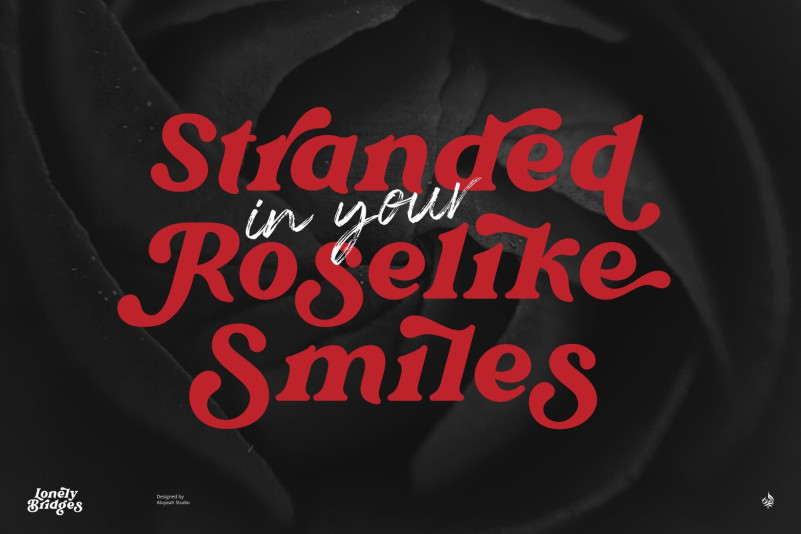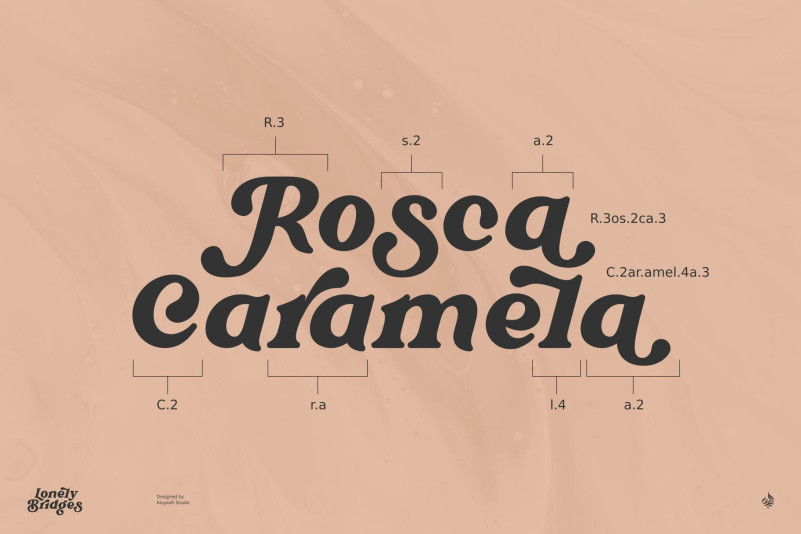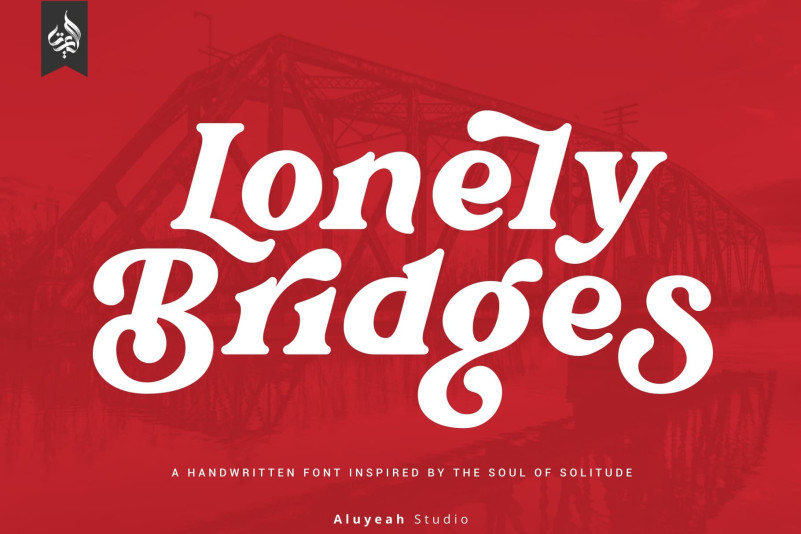
Lonely Bridges Font
Lonely Bridges Retro Font a handwritten display font inspired by the soul of solitude. Lonely Bridges carries an italic style giving the impression of an unstable, rebellious, and indecisive soul. Make your design project more emotional to convey.
It can be applied to many areas of design. Coming with 150+ stunning and super easy to use alternates and ligatures. Very suitable for packaging, apps, magazine, headline, website, ads and all type of design project you have.
Super Easy to Use alternates – You can easily call alternates using special combination like A.2 S.2 L.A r.a g.i i.k etc.
To get results like the preview just type L.4onel.4y B.3r.idges.2